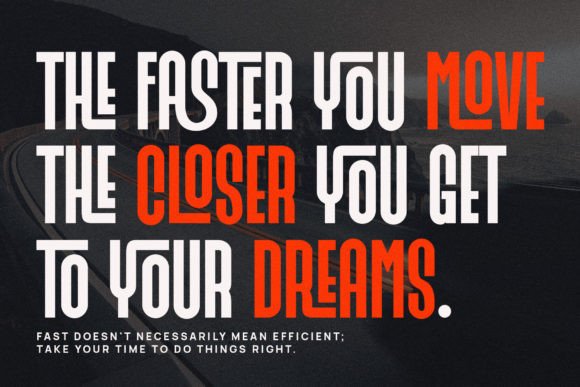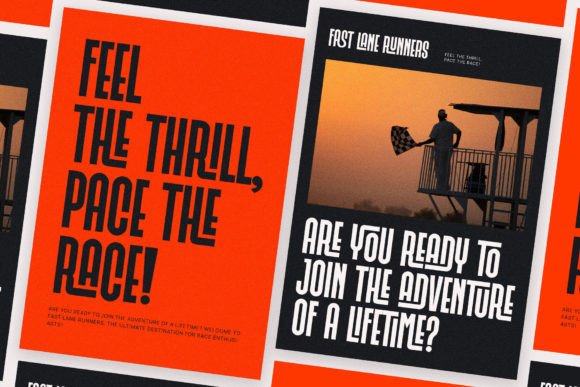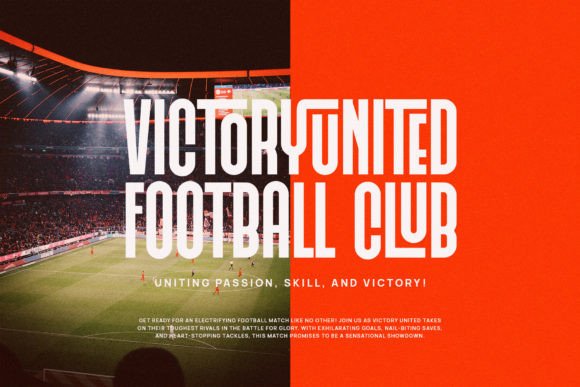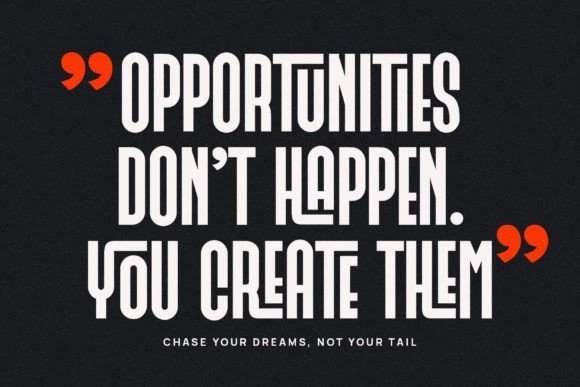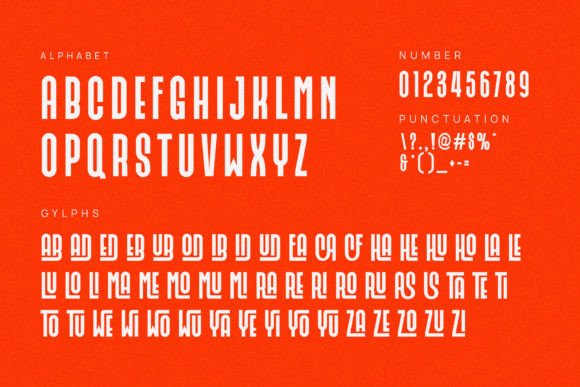
Introduction to Mecaros Font
As you sit in front of your computer, staring at a blank canvas, the thrill of a new creative project begins to stir within you. The possibilities are endless, but the perfect design resource can make all the difference. That’s where the Mecaros Font comes in – a game-changing typeface that’s poised to elevate your work to new heights.
With its unique blend of inspiration and carefully crafted proportions, the Mecaros Font offers a level of elegance and minimalism that’s hard to find in other design resources. Whether you’re working on a brochure, video, or advertising campaign, this high-quality font is sure to deliver. And with its transparent background and PUA encoding, you’ll have access to a wide range of glyphs and ligatures that will take your design to the next level.
Key Features of Mecaros Font
- Unique and stylish font with a transparent background, perfect for adding a touch of elegance to your designs.
- Designed to be highly legible, making it perfect for use in a variety of creative projects, from logos to typography-heavy designs.
Honest Review: Mecaros Font
I recently came across the Mecaros Font, and I must say it’s been a great addition to my design resources. The font offers a high quality, unique aesthetic that’s perfect for creative projects.
- High-quality design: The Mecaros Font is well-designed and visually appealing, making it perfect for a variety of design projects.
- Transparent background: This feature allows for seamless integration with other design elements, giving you more creative freedom.
- Limited font weights: The Mecaros Font only comes in a few font weights, which may limit its versatility in certain design contexts.
- No italic or bold options: While the font’s regular weight is beautiful, the lack of italic or bold options may be a drawback for some designers.
Overall, I’m impressed with the Mecaros Font and would recommend it to designers looking for a unique, high-quality design resource. While it may have some limitations, its benefits far outweigh its drawbacks, making it a valuable addition to any design library.
Use the Mecaros Font in combination with other design elements to create visually appealing designs. Experiment with different font sizes, colors, and styles to find the perfect balance for your creative project. The Mecaros Font is a versatile design resource that can be used in a variety of applications.
The Mecaros Font is ideal for use in logos, branding materials, posters, and social media graphics. Its high-quality design and transparent background feature make it a popular choice among designers and artists.
Does the Mecaros Font have a transparent background?
No, the Mecaros Font does not have a transparent background. However, you can easily create a transparent background using design software like Adobe Photoshop or Illustrator. Simply create a new layer, fill it with a transparent color, and then place the Mecaros Font on top of it. This will give you a clean and modern design that’s perfect for your creative project.